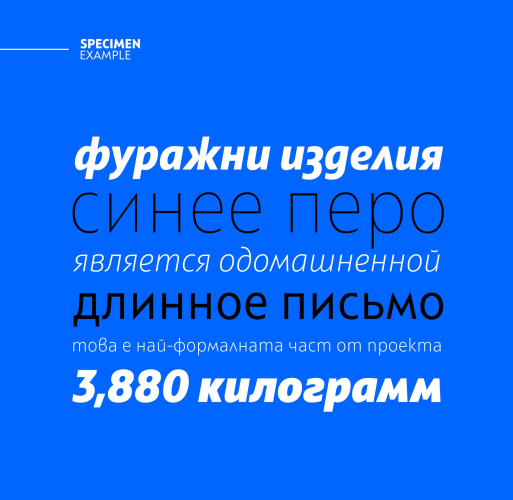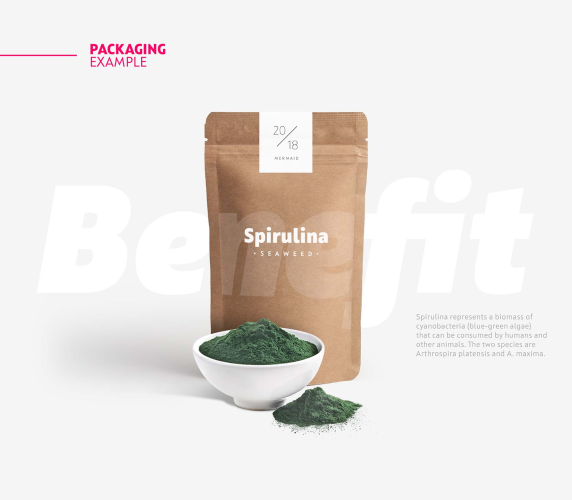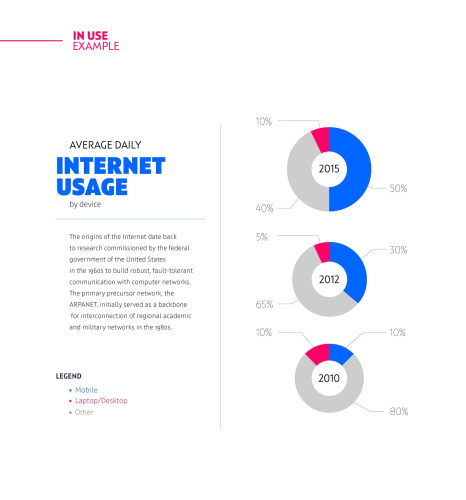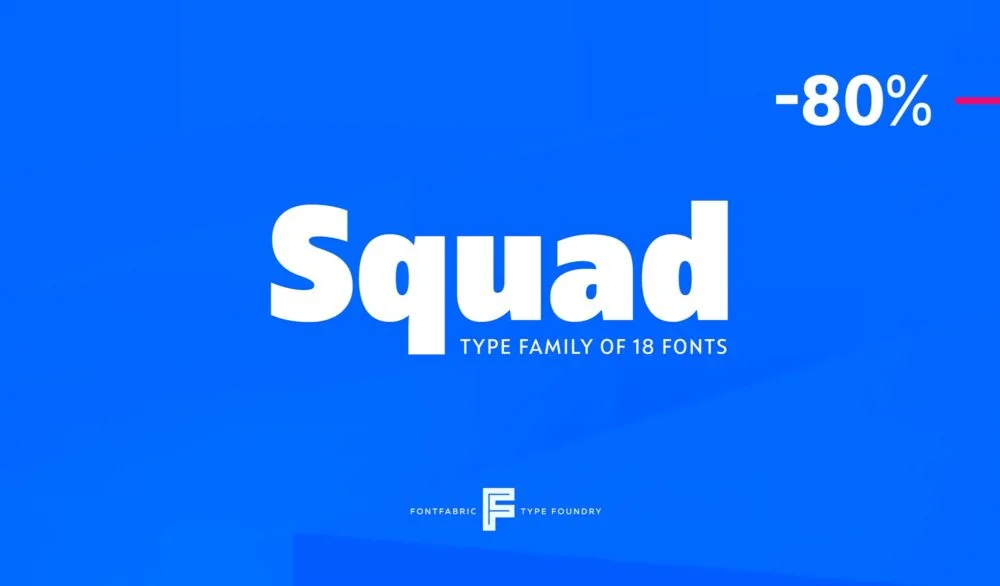
Squad Font
Squad Font is a sans serif font inspired by Adrian Frutiger’s perfectionist style hence it’s perfect for any project design; it’s available in more than 130 languages (i…
Squad Font is a sans serif font inspired by Adrian Frutiger’s perfectionist style hence it’s perfect for any project design; it’s available in more than 130 languages (including Cyrillic, Greek, and Latin), in 18 styles from thinking to black, and in over 780 glyphs. It’s such a functional typeface that you can use it for any text, headlines, poster design, branding, web design, and all sorts of advertisements. So whenever you’re working on a new project and don’t know which font to use, just call up your “squad”, they got you covered.
Where Squad Font works best
Squad Font keeps its shape at 14 and 16 pixels, which is where interface text actually lives. Numbers and capitals stay distinguishable in tables.
Presentations are read at a distance; a clean sans with a strong bold is the safest hierarchy you can build in a hurry.
Simple letterforms survive angles, glare and movement, so Squad Font suits door signs, menus boards and exhibition panels.
What kind of work does Squad Font suit?
It sits in the Sans Serif Fonts group and reads as branding, headlines, sans serif, sans serif fonts. That makes it a candidate wherever those qualities help: headings, packaging, social graphics and brand work. Set it at the size you plan to use before deciding.